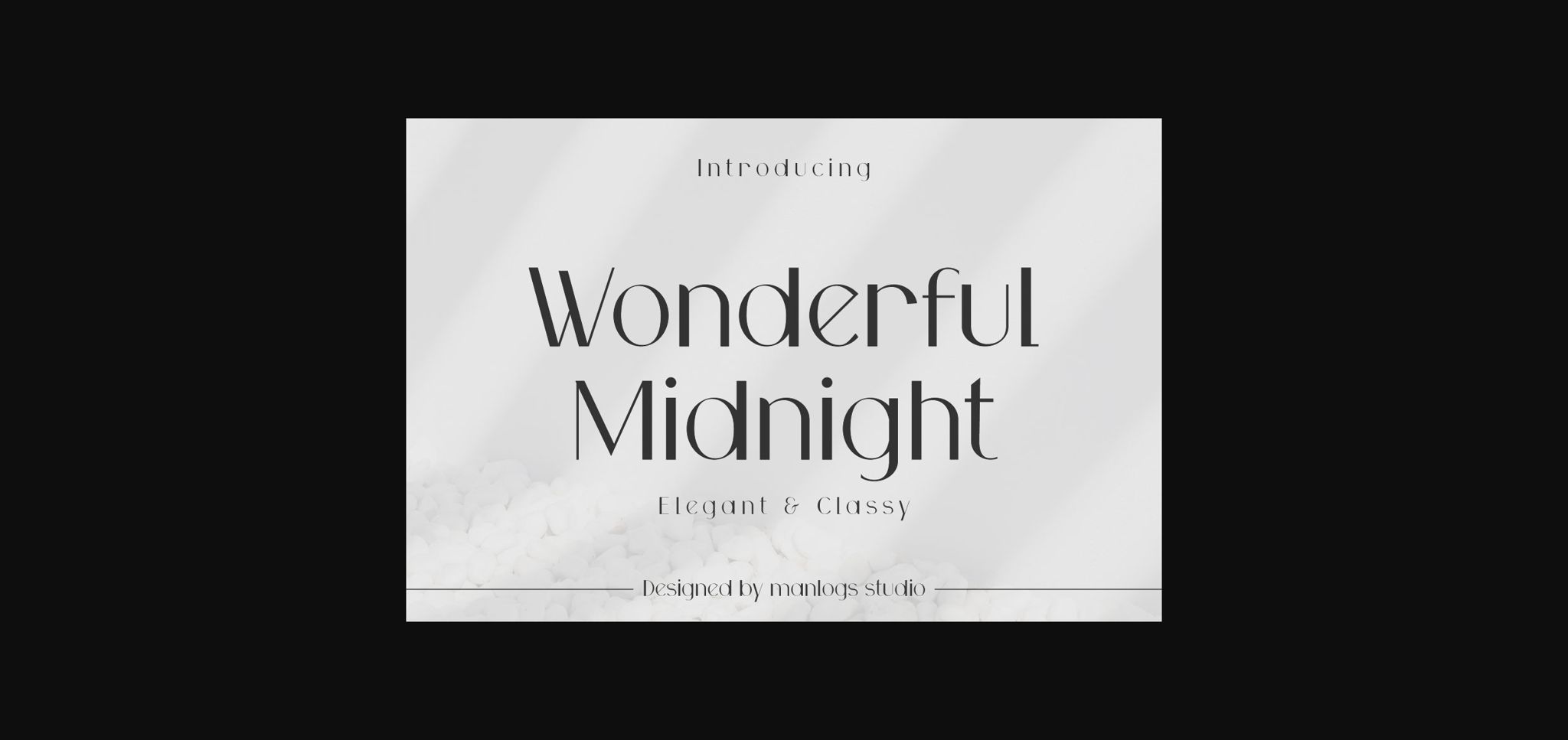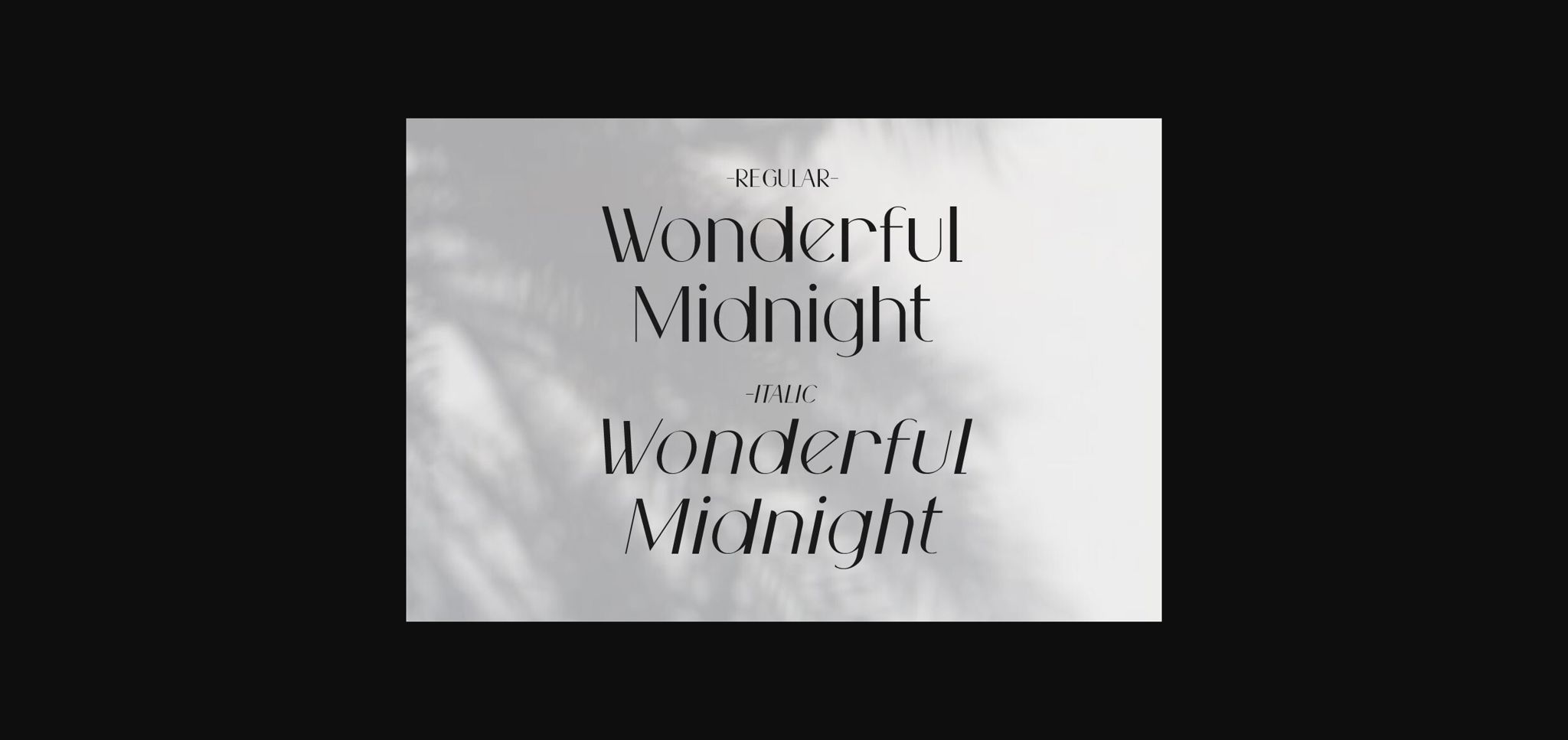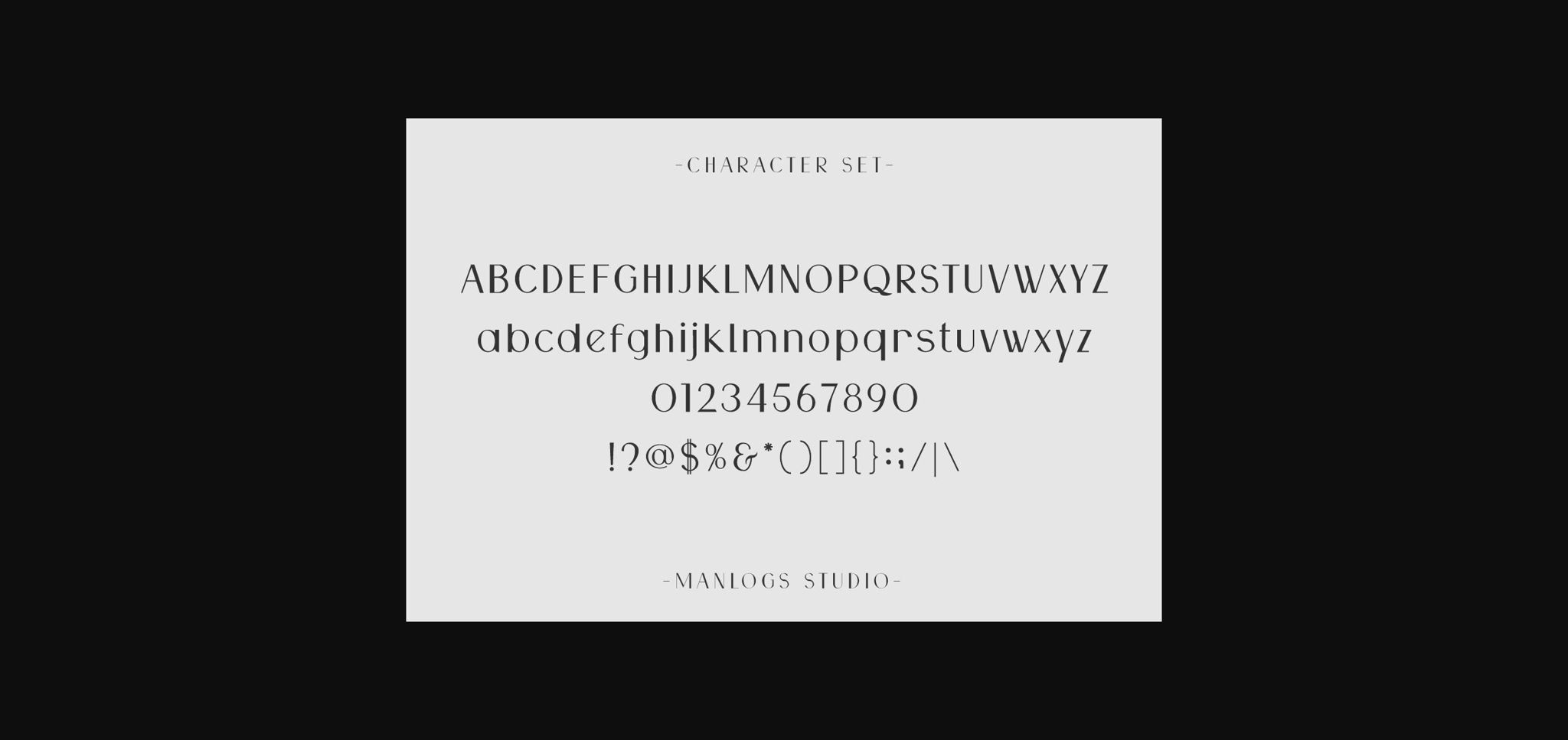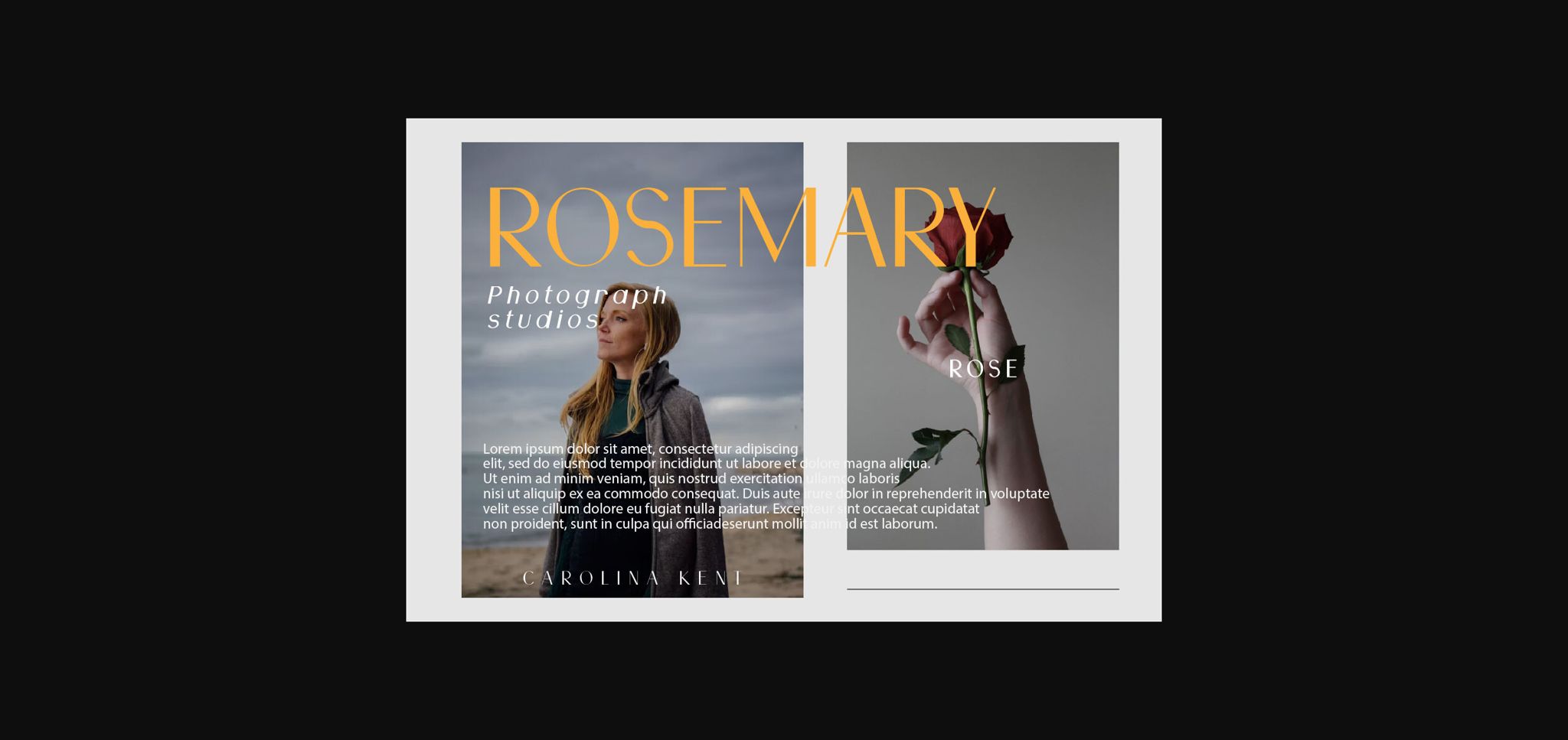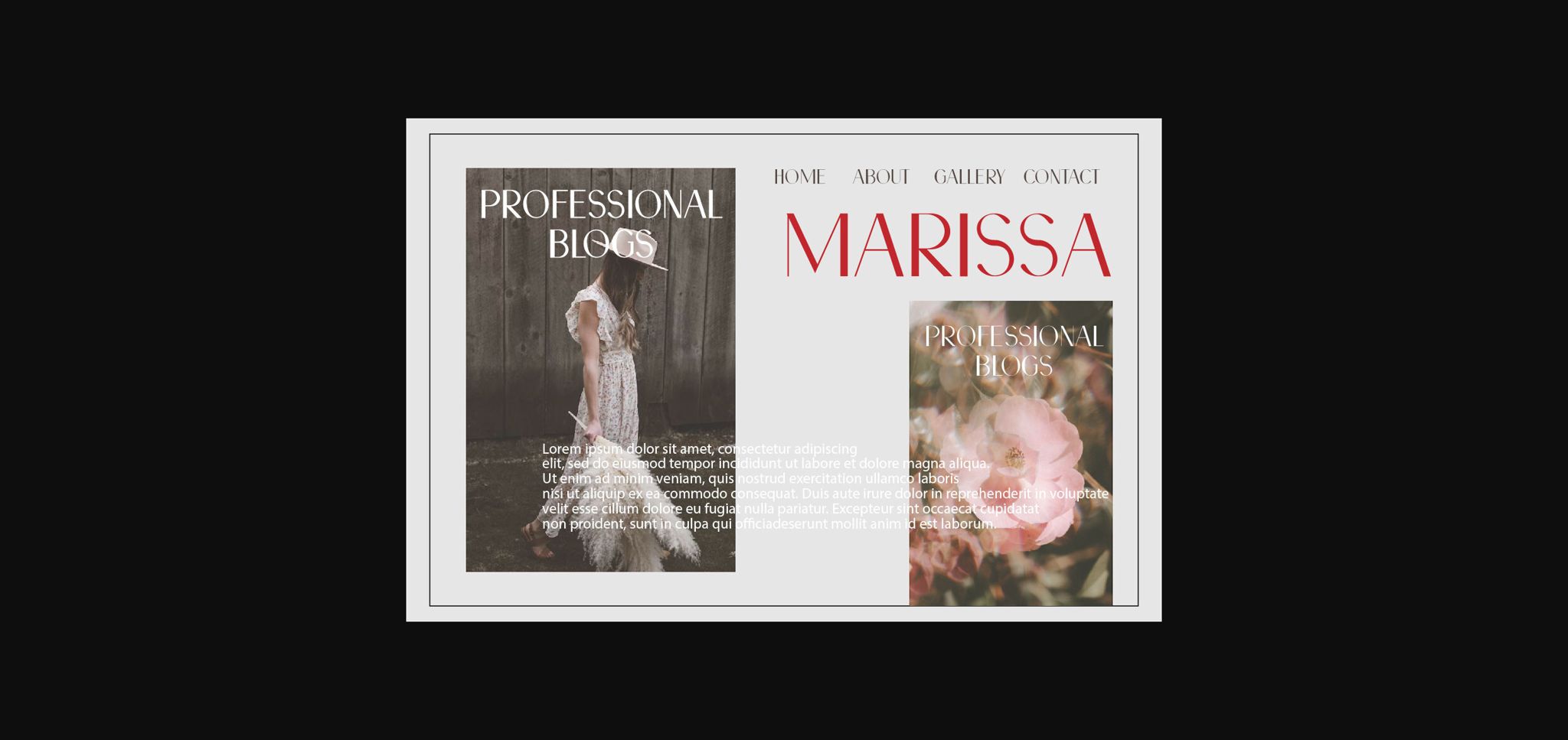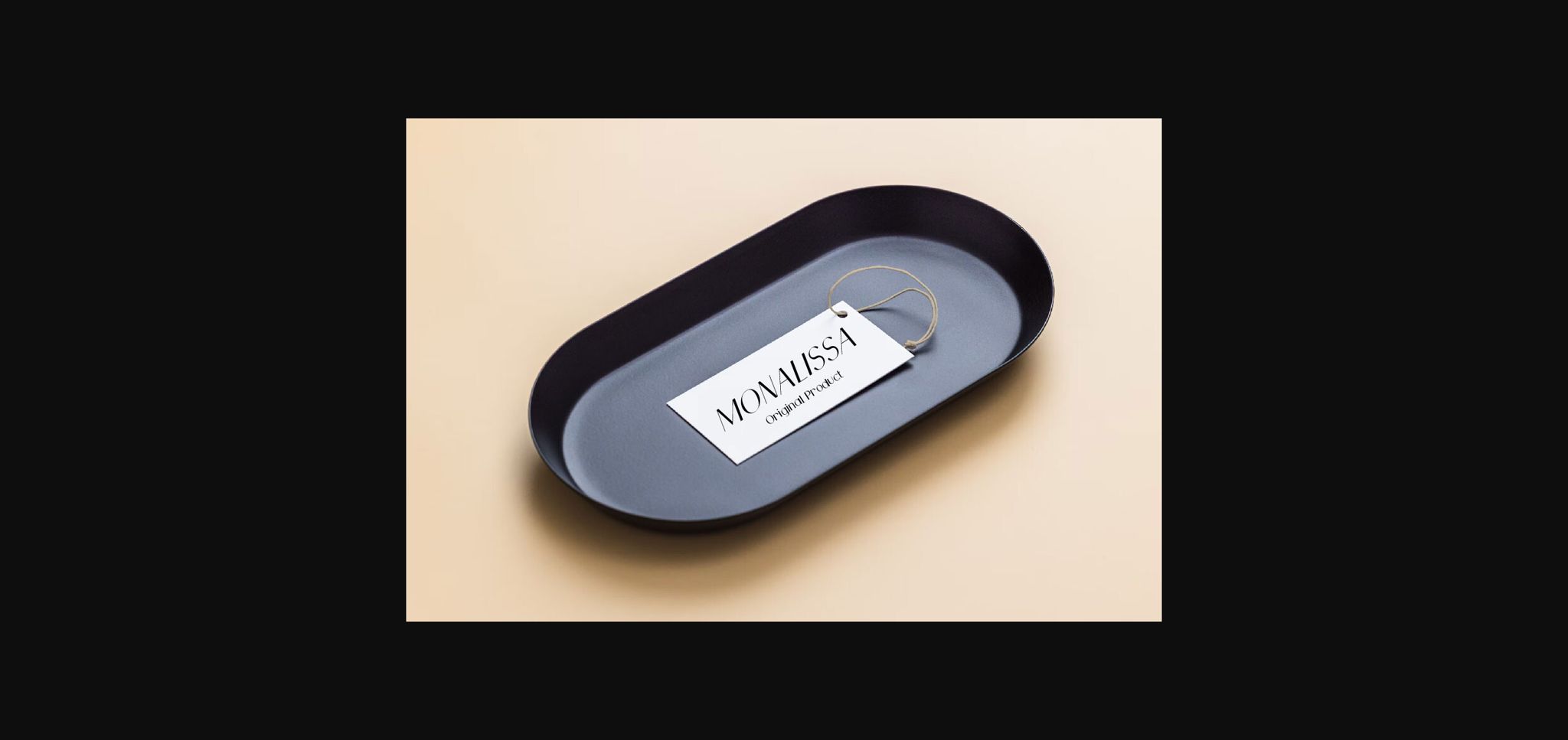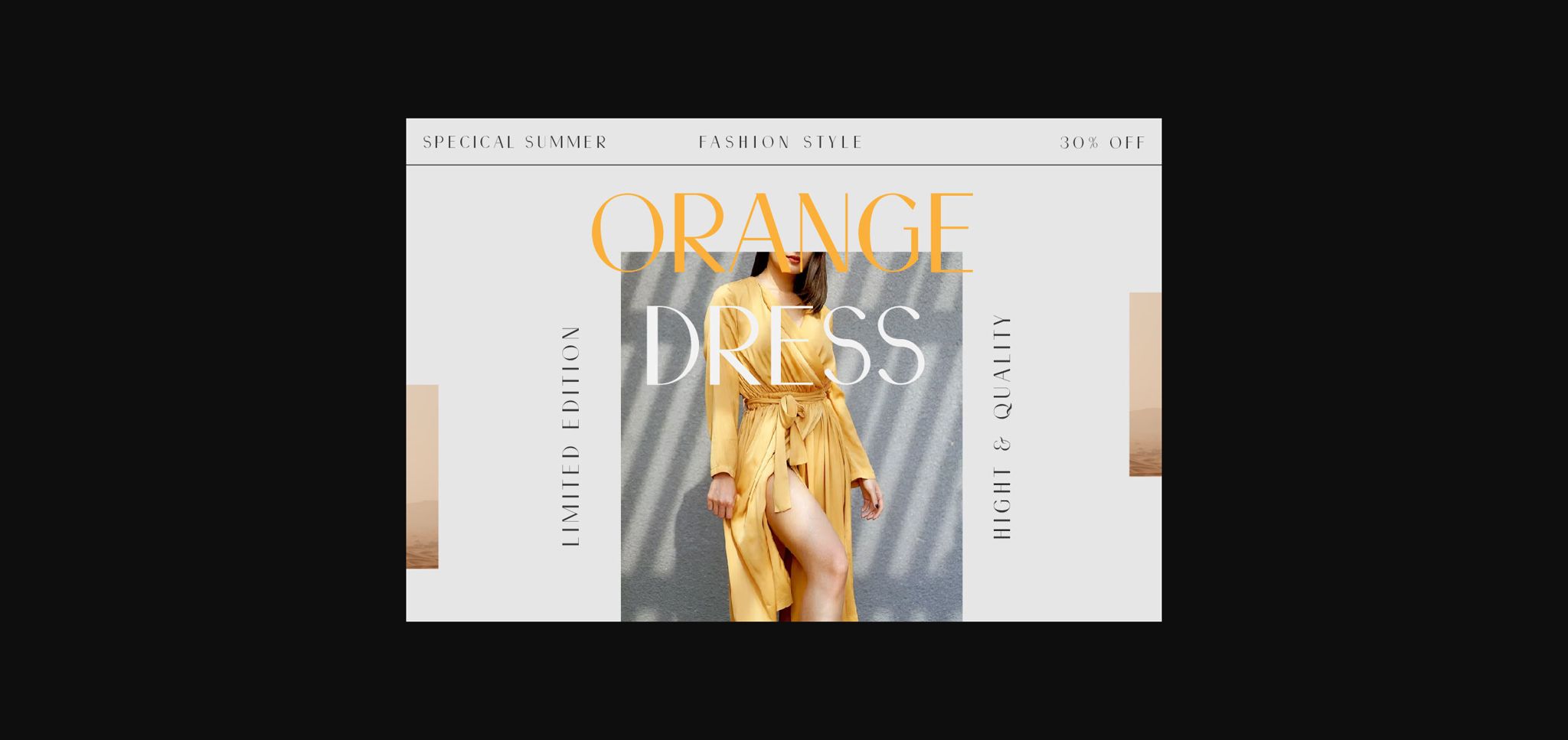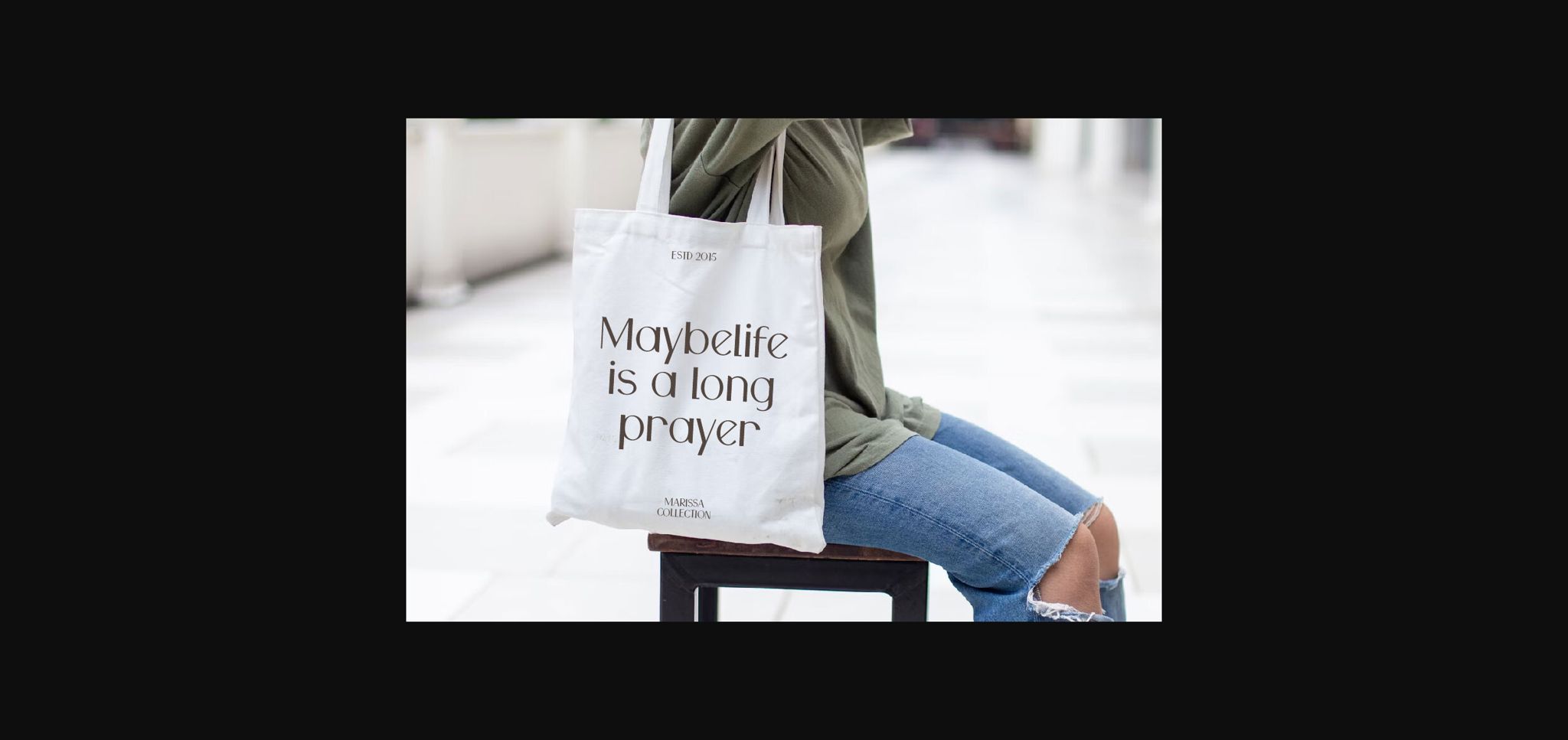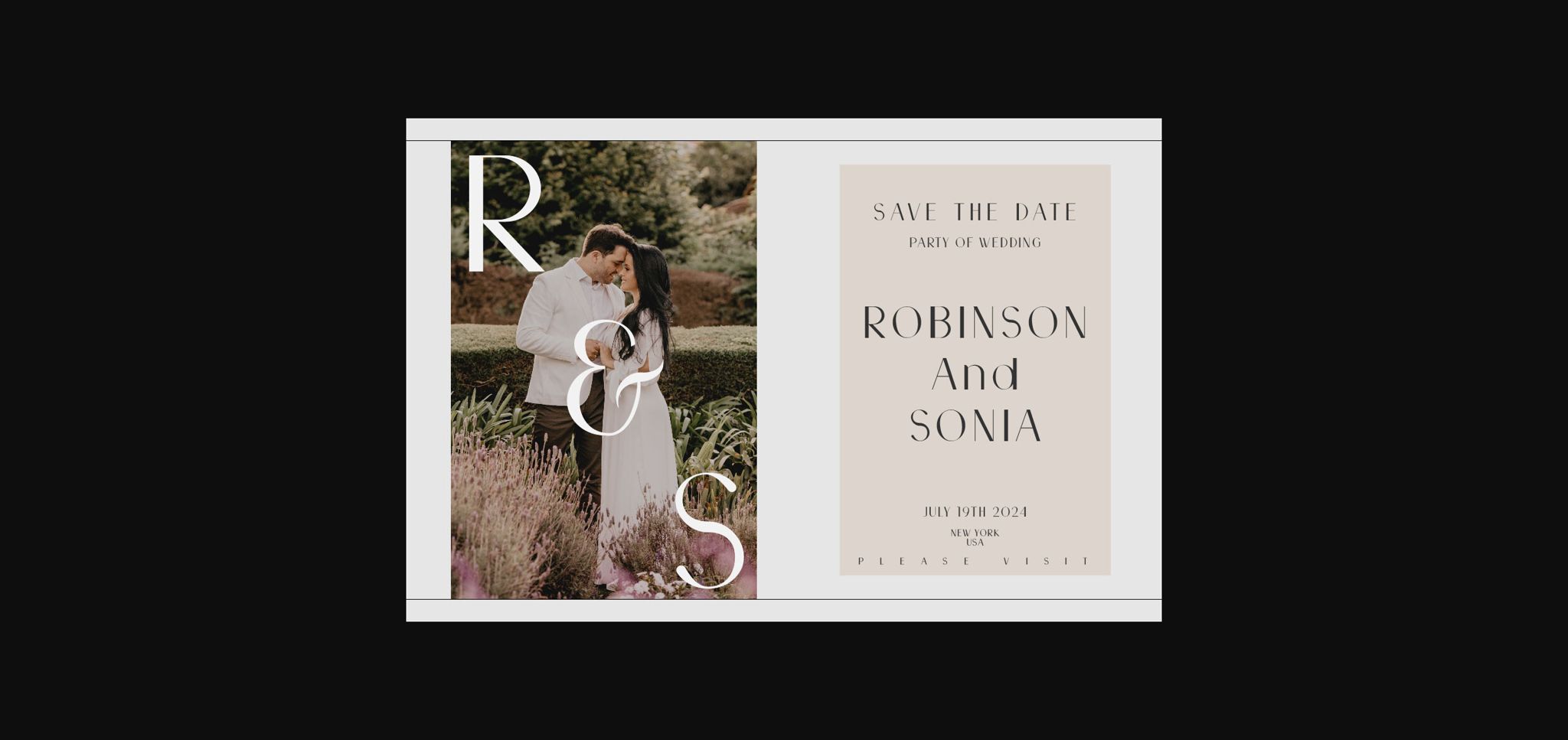
Wonderful Midnight Font
About Wonderful Midnight Font
Wonderful Midnight, a elegant and modern sans serif font with an italic graces the written word with timeless elegance. Its delicate and graceful evoke a sense of sophistication, It is designed with a touch of modern look and feel, making it ideal for projects that demand a touch of class.
This is font perfect for logos, headlines, signage, and the other various formal forms such as invitations, labels, logos, magazines, books, greeting/wedding cards, packaging, fashion, makeup, stationery, novels, labels or any type of advertising purpose and much more!